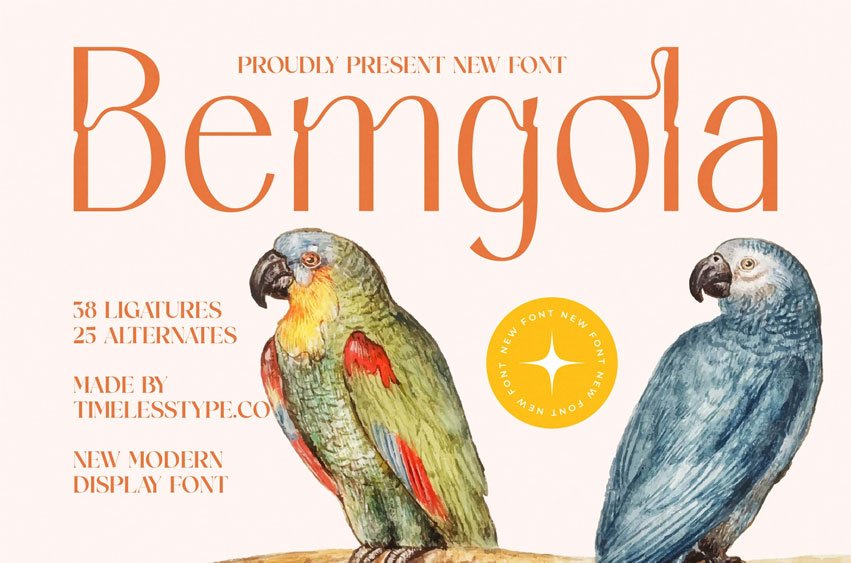
Bemgola Font is a refined modern display serif that blends soft sculpted curves with elegant high-contrast strokes, creating a warm yet sophisticated visual character perfect for editorial layouts, branding, lifestyle p
With 58 ligatures and 25 alternates, Bemgola offers rich typographic flexibility—allowing designers to craft expressive titles and graceful wordmarks enhanced by its organic, nature-inspired charm.